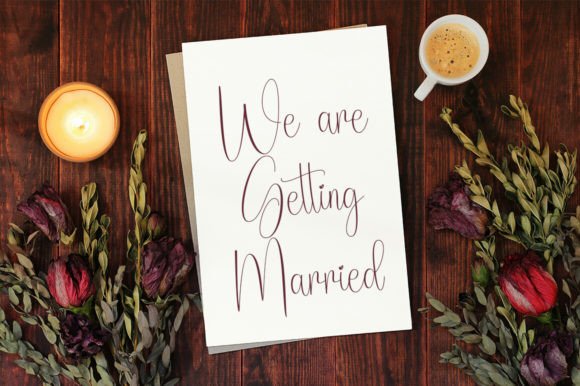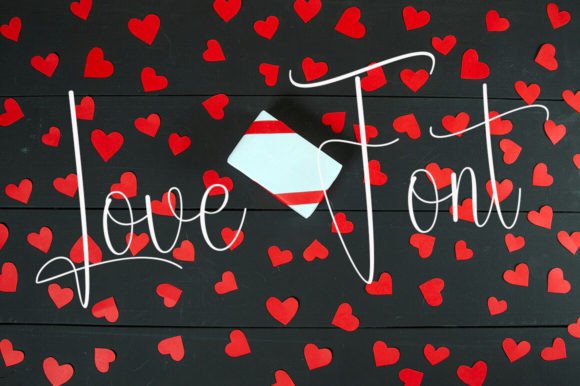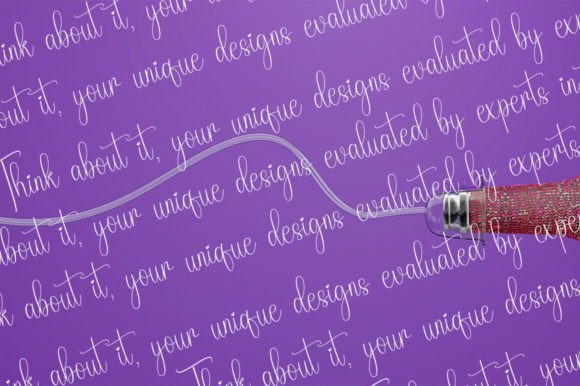
The Autosian Font: Elevating Design with Elegance and Modernity
Have you ever been in the middle of a design project, meticulously crafting every detail, only to hit a roadblock when it comes to selecting the perfect font? I recall a particularly frustrating experience while working on a branding project for a luxury client. The goal was to create an invitation that exuded sophistication and elegance, but no matter which font I chose, it seemed to fall flat. That was until I stumbled upon the Autosian Font. Its sleek lines, flowing curves, and dynamic character instantly captured the essence of the brand, and I knew I had found the perfect fit.
A Closer Look at Autosian Font
The Autosian Font is a masterpiece of modern typography, combining sleek elegance with a modern flair. Its smooth, flowing lines and distinctive curves give it a unique personality that can elevate any creative project. Whether you’re working on branding, invitations, or any other design that aims to leave a lasting impression, Autosian Font is an excellent choice.
What I Love About Autosian Font
• ✨ Sleek and Modern Design: The font’s sleek lines and modern flair make it perfect for contemporary designs.
• ✅ Elegant and Sophisticated: Autosian Font adds a touch of sophistication to any project, making it ideal for luxury brands and high-end invitations.
• 🌈 Versatile: The font’s dynamic character and unique typography make it versatile for various creative projects.
While Autosian Font is incredibly versatile and beautiful, there are a few things to keep in mind:
• 🤔 Legibility at Small Sizes: Like many elegant fonts, Autosian may lose some legibility when scaled down to very small sizes. It’s best used at larger sizes where its features can truly shine.
• ⚠️ Limited Use in Body Text: Due to its elegant and sophisticated nature, Autosian Font is more suited for headings and titles rather than body text.
The creation of Autosian Font was inspired by the need for a typeface that embodies both classic elegance and modern sophistication. The designer aimed to craft a font that would serve as a bridge between traditional typography and contemporary design needs. Through meticulous refinement and attention to detail, Autosian Font was born, offering a unique typographic experience that harmonizes the best of both worlds.
Is Autosian Font suitable for body text? While Autosian Font is elegant and sophisticated, it’s more suited for headings and titles. For body text, consider using a font with better legibility at smaller sizes.
Does Autosian Font support OpenType features? Yes, Autosian Font supports OpenType features, allowing for advanced typographic styling and glyph selection.